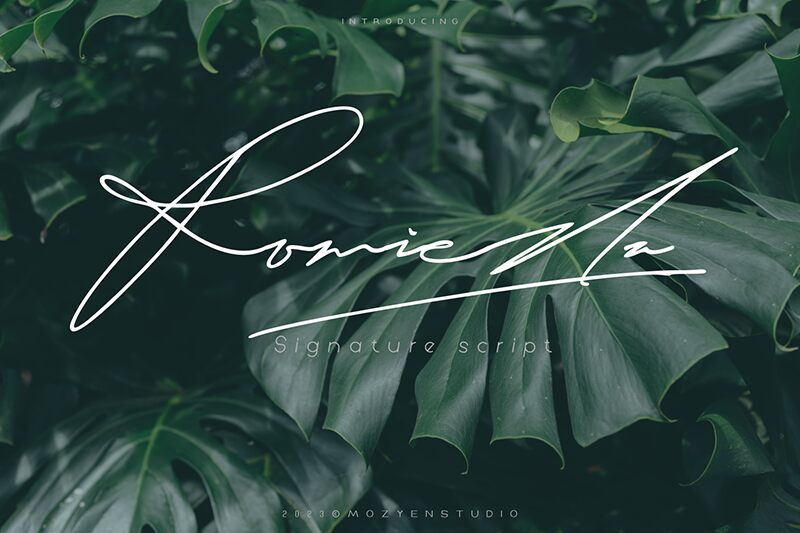
Romieda
Romieda font by Mozyen Studio is a handwritten and signature-style typeface that captures the essence of elegance and sophistication. Characterized by its flowing, curved lines, this light font naturally emulates a handwritten signature with a subtle personal touch. Its timeless aesthetic makes it perfect for brands seeking an elegant representation.
Versatile in its use, free Romieda font is excellent for branding projects, business cards, invitations, planners, logos, quotes, packaging designs, fashion magazines, promotional material designs on social networks and websites. Use it to elevate your visual hierarchy through large-sized displays but also in body copy text.